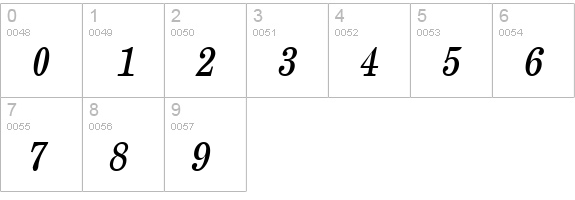
NewCenturyThin Oblique Font Details
NewCenturyThin Oblique is a distinctive, italic variant in the NewCenturyThin typeface family \xE2\x80\x94 well suited to design and typography projects.
NewCenturyThin Oblique font is a modern and sleek typeface that exudes elegance and sophistication. With its thin and slanted design, this font is perfect for adding a touch of style to any project. Whether you are working on a website, logo, or print design, NewCenturyThin Oblique will make your text stand out with its unique and contemporary look. The best part is that NewCenturyThin Oblique font is completely free to use! You can easily download it from FontsMarket.com and start using it in your projects right away. Don't miss out on this opportunity to enhance your designs with this stylish and versatile font.